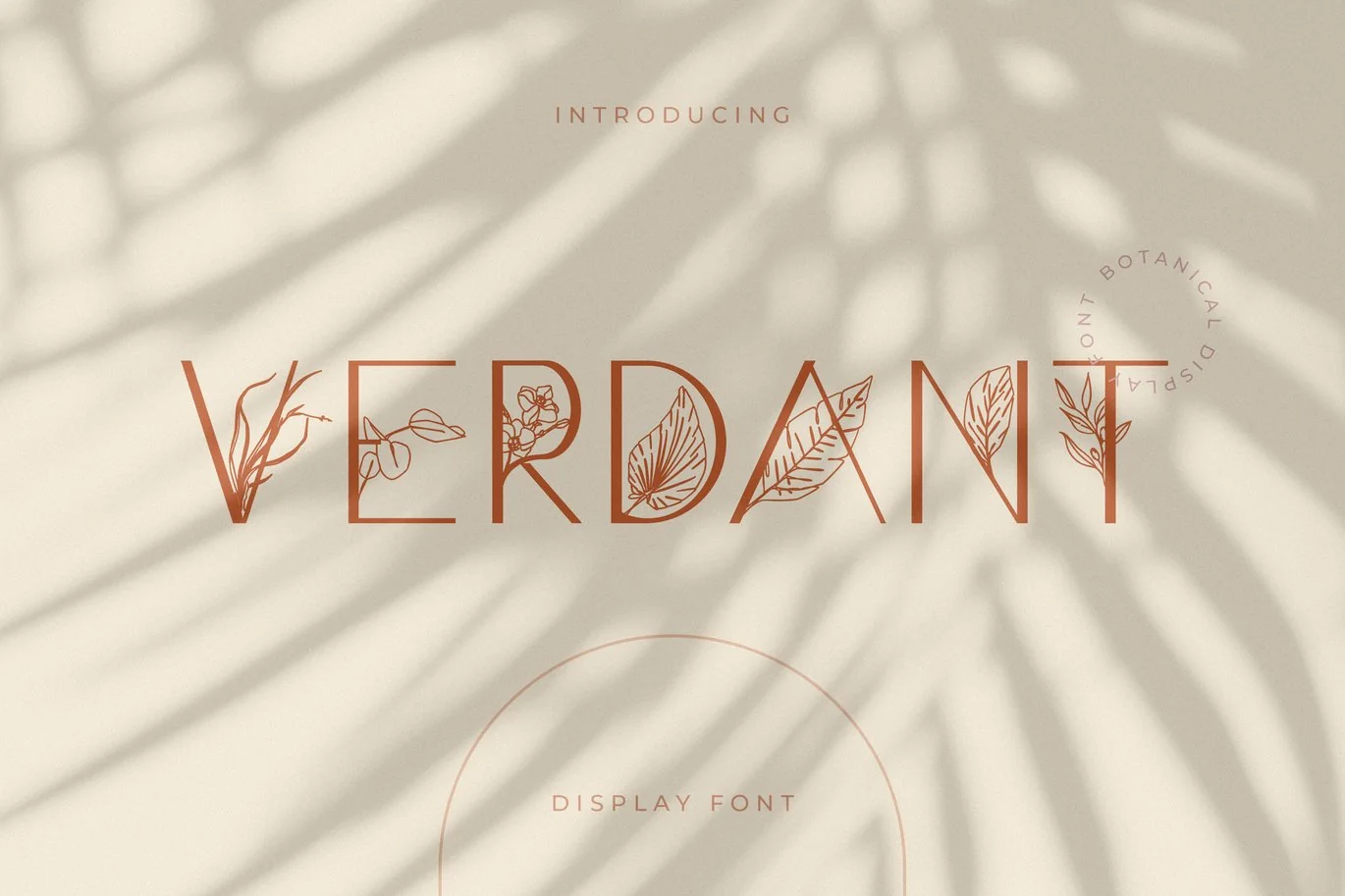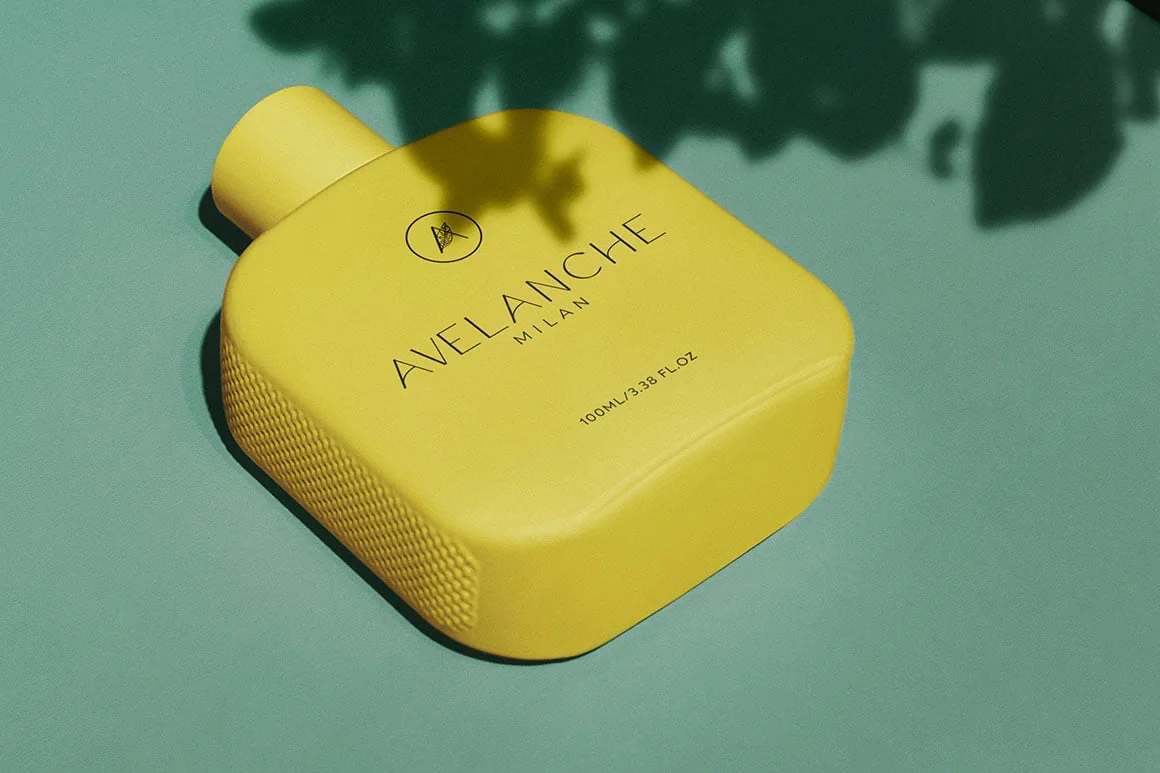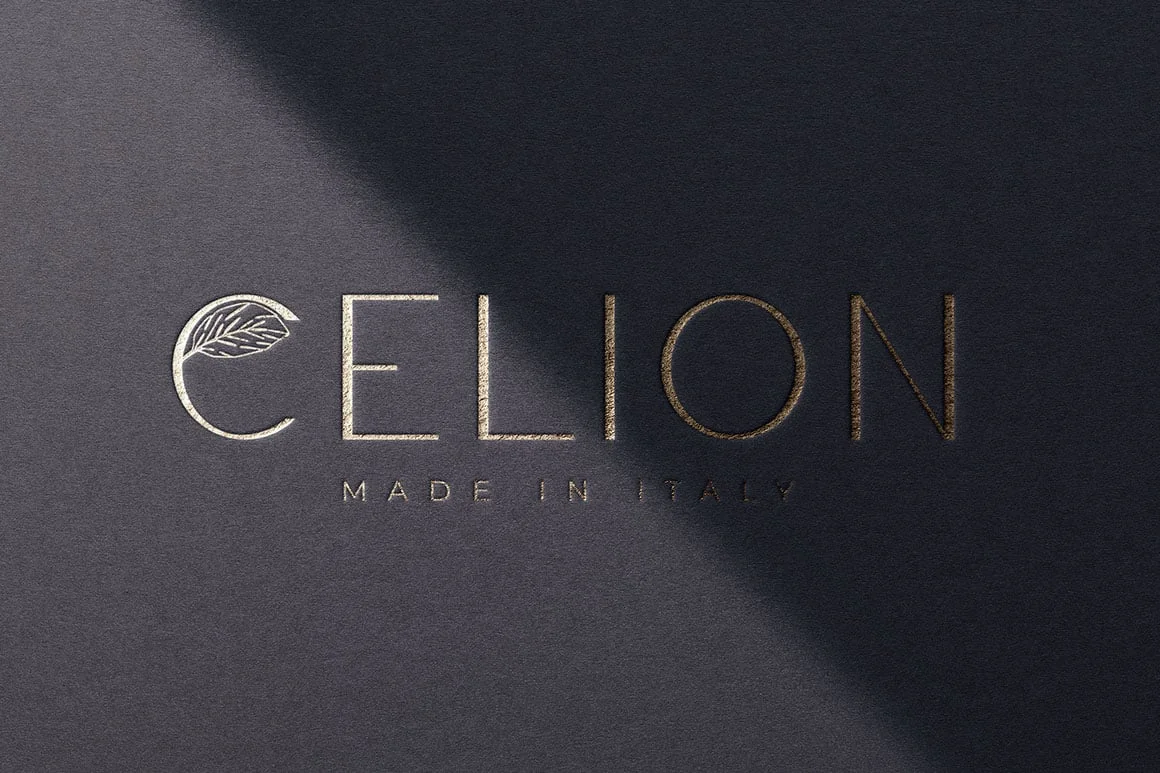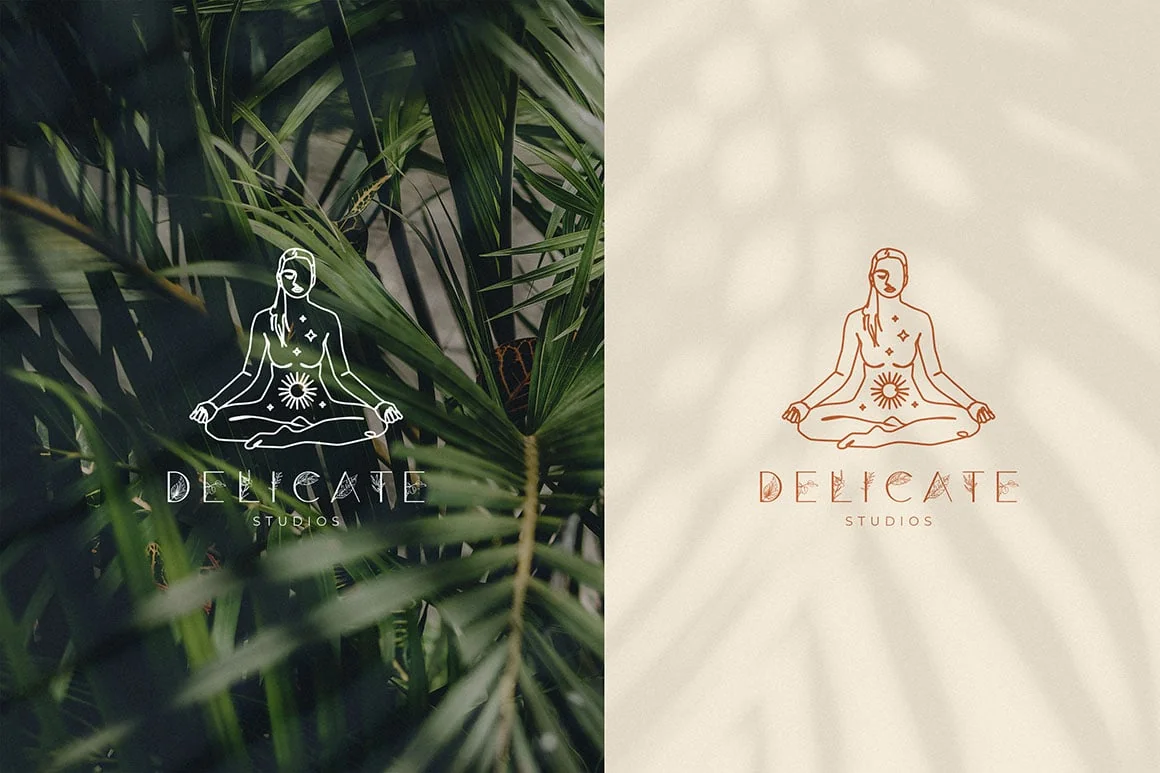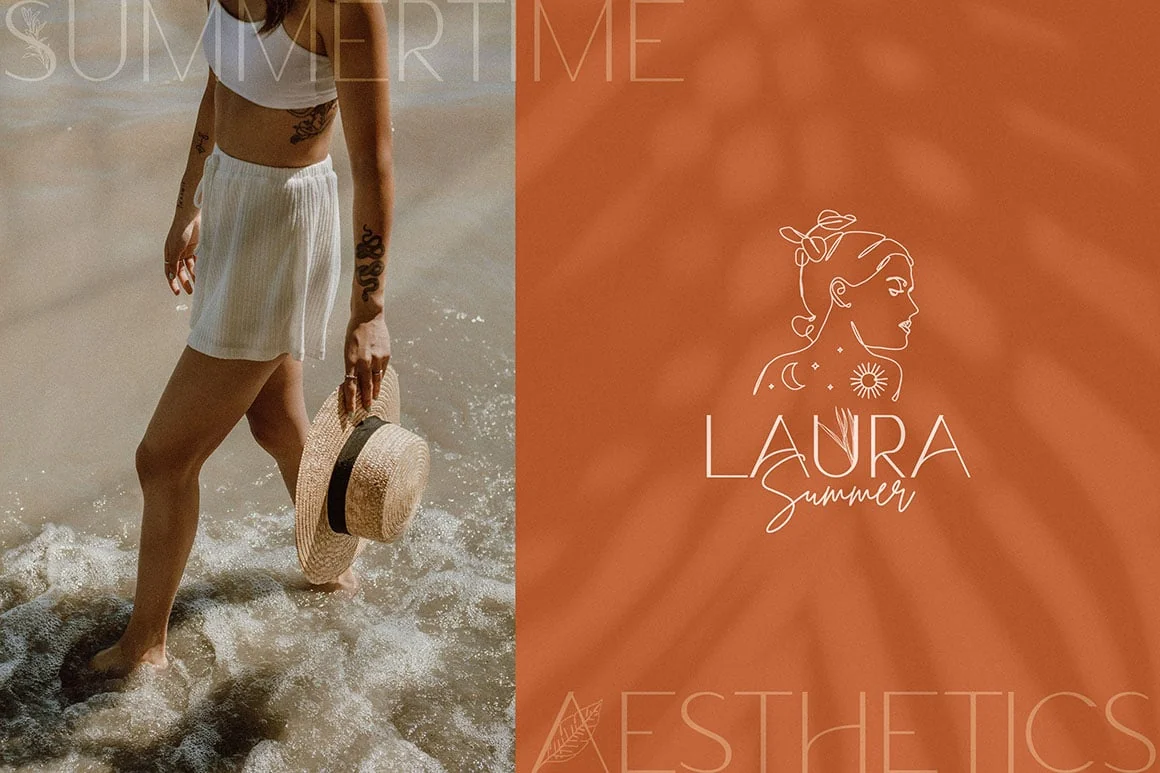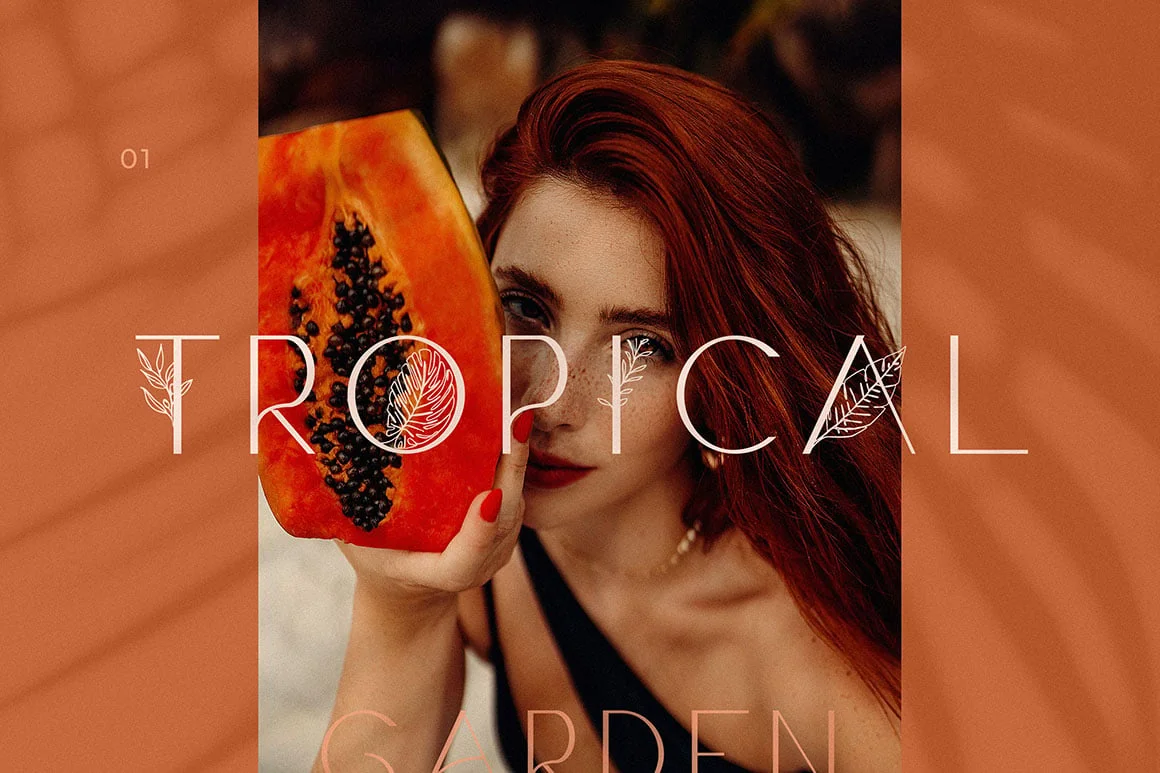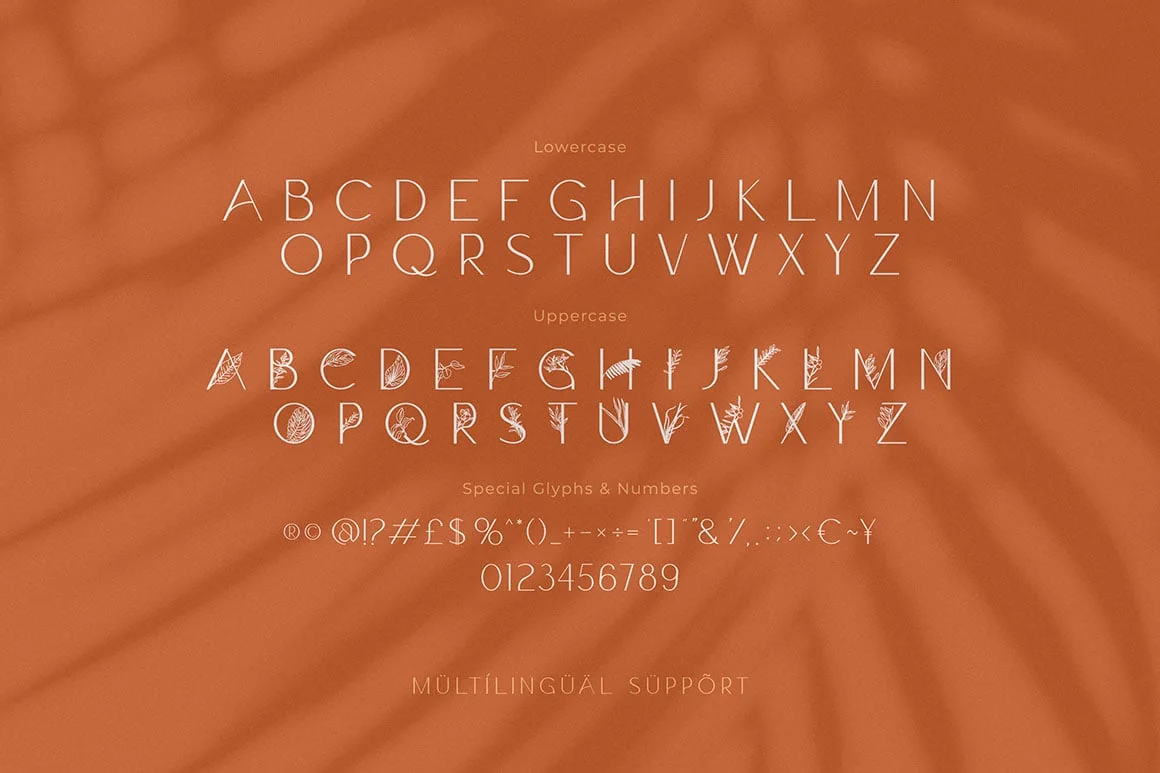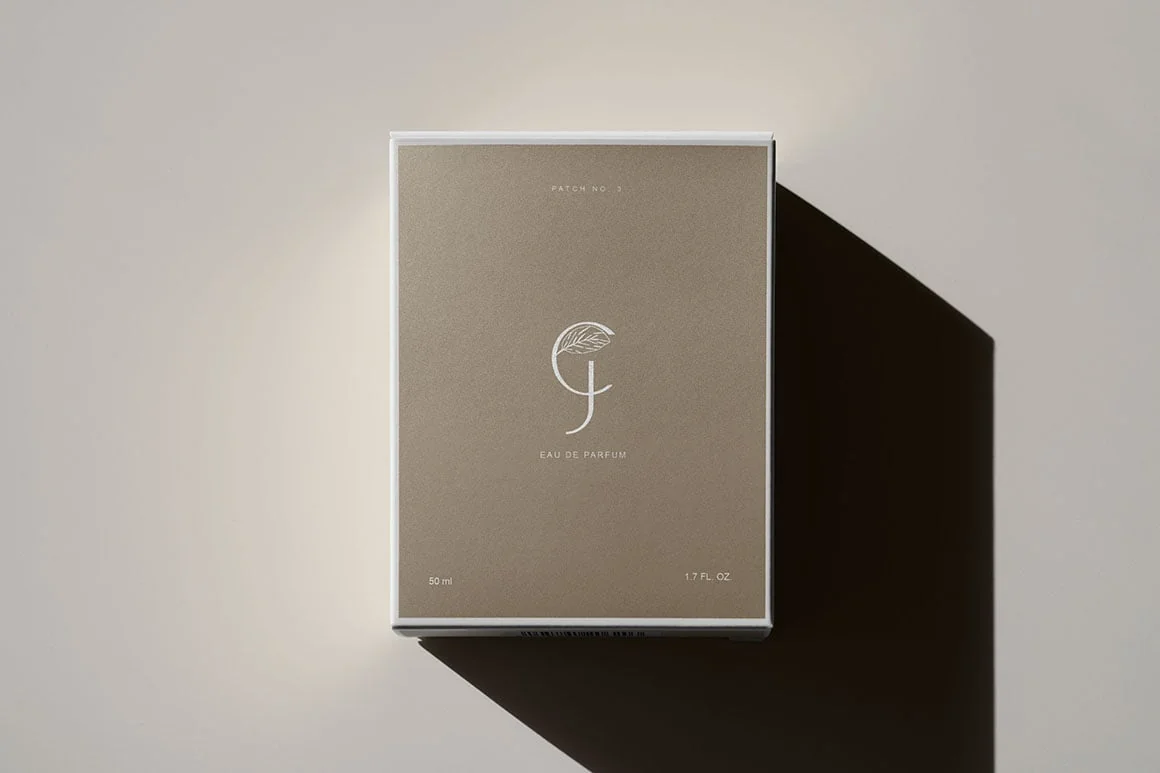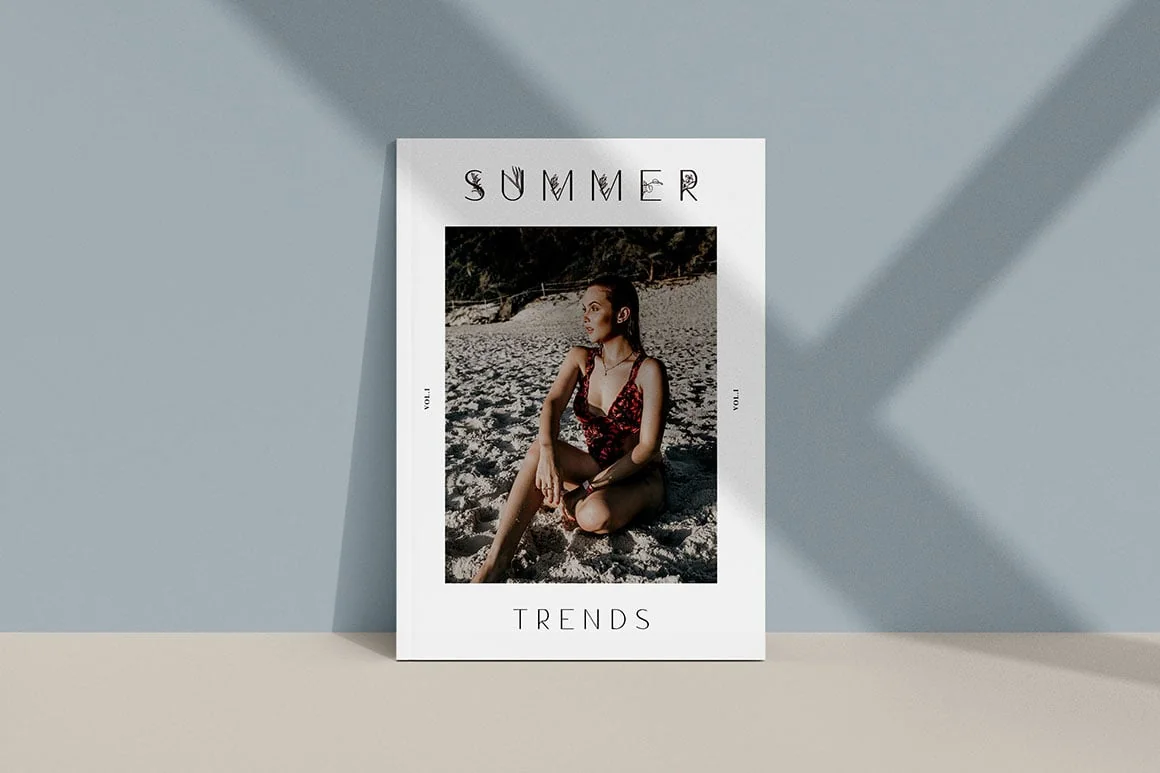
Verdant – Botanical Display Font
Introducing Verdant – a Botanical Font with Minimal Leaf and Flower Illustrations. Verdant is extremely versatile and looks great as an accent alongside any regular sans-serif or serif font. Use it to create elegant packaging designs, luxury logos, branding collateral, print designs and more!